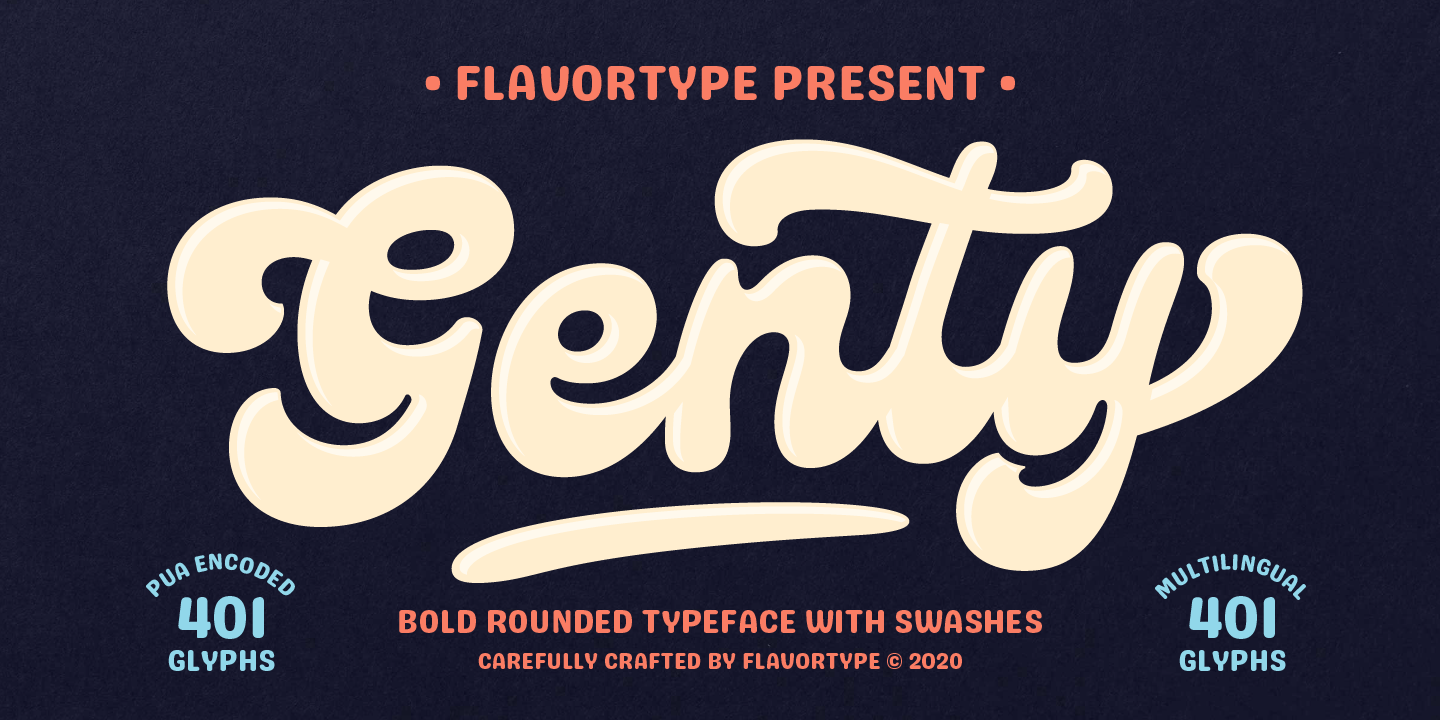
Genty Font is a top pick for playful branding, product packaging, YouTube thumbnails, lifestyle blogs, streetwear designs, and funky social media graphics. Its bold, bouncy personality instantly injects fun and friendliness into any project.
What makes Genty Font Free Download so exciting is its handcrafted look with rounded edges, smooth curves, and cartoon-like charm. It’s full of character—great for designs that want to feel human, joyful, and approachable without losing structure.
The Genty font family includes styles like Genty Regular, Genty Bold, and Genty Outline, along with a fun set of ligatures and alternates that let you customize your text with extra flair.